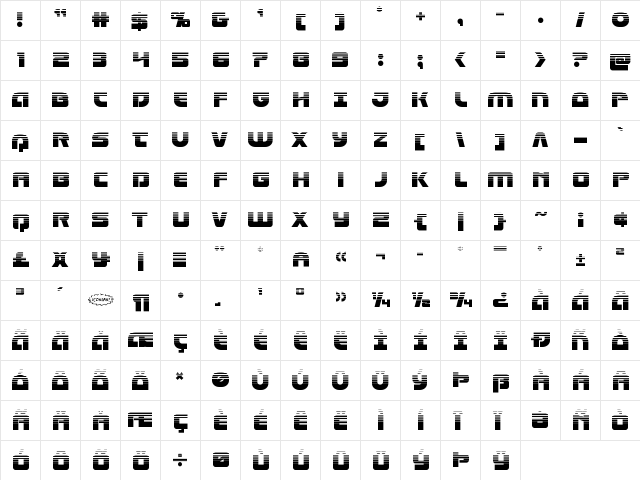
Laser Corps Halftone Regular Font Preview
Laser Corps Halftone Regular
Laser Corps Halftone Regular Font Details
Design Context for Laser Corps Halftone Typeface
Laser Corps Halftone is a composed and adaptable typeface that performs quietly and consistently across a wide range of design contexts.